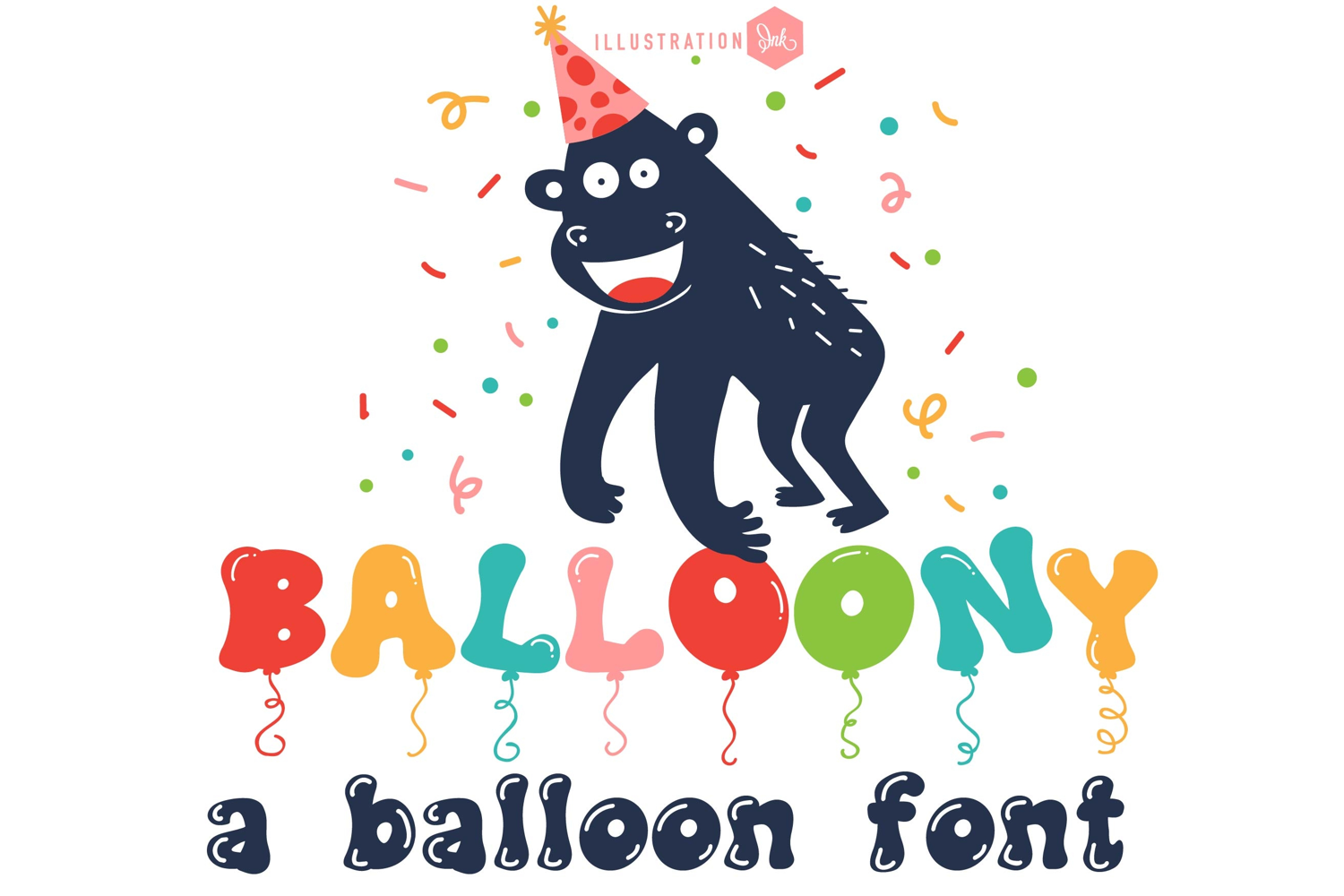
Balloony Font Family
This hand-crafted font is a whimsical, balloon print. This family includes a version without strings too so you can draw them in yourself!